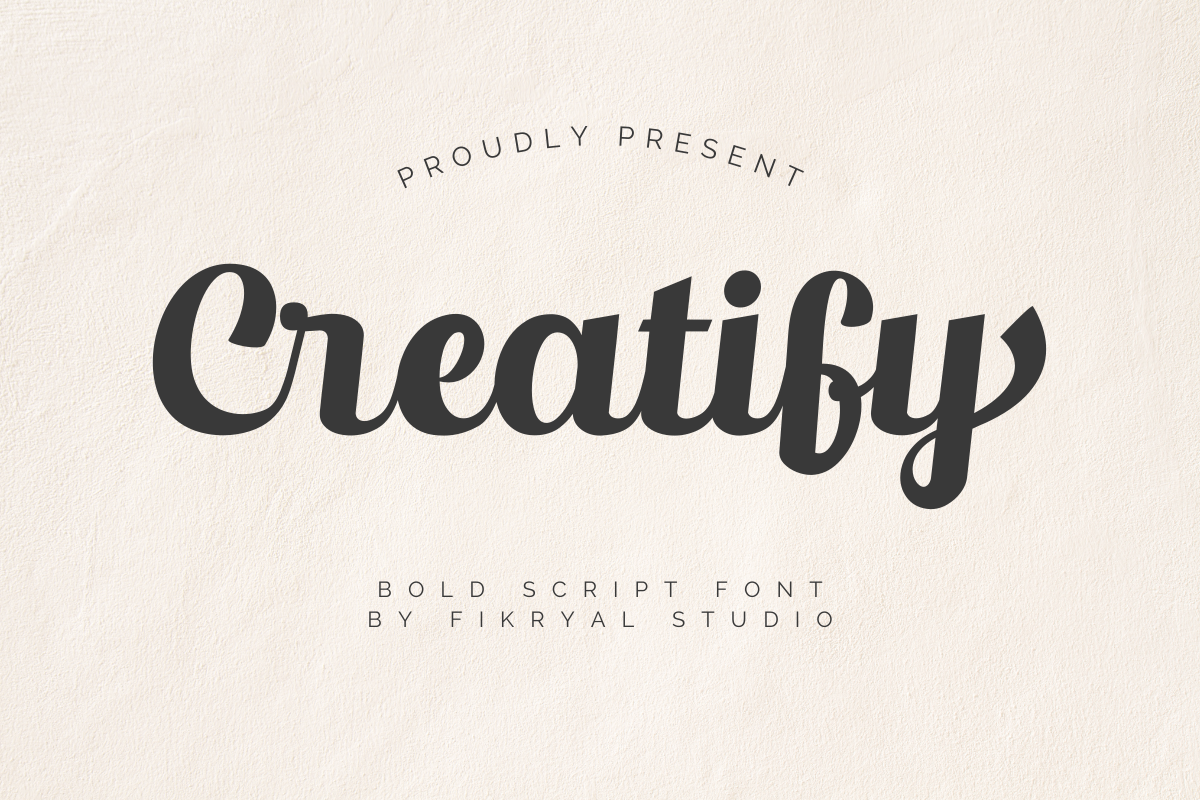
Creatify – Font is a bold script font. It’s perfect for logo, branding, title, social media posts, advertisements, product packaging, product designs, label, photography, watermark, special event, magazine, web design, etc.
Contextual alternates
Stylistic alternate